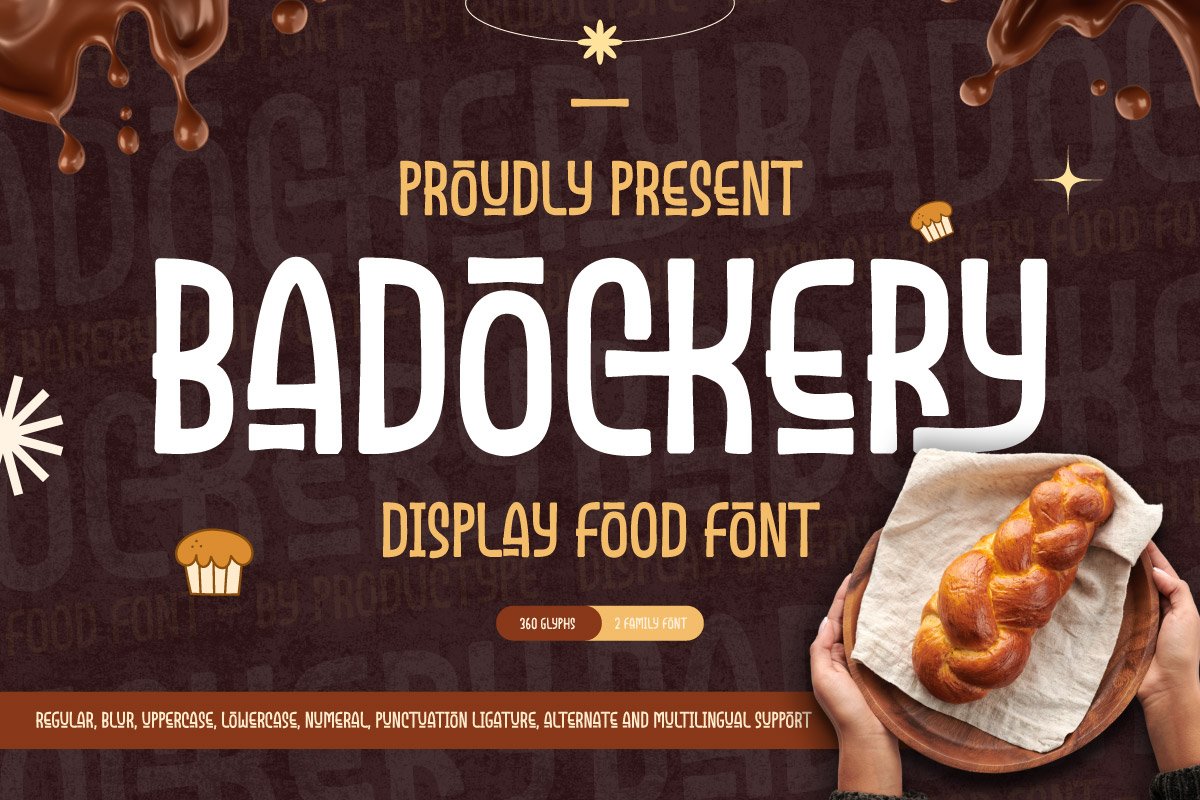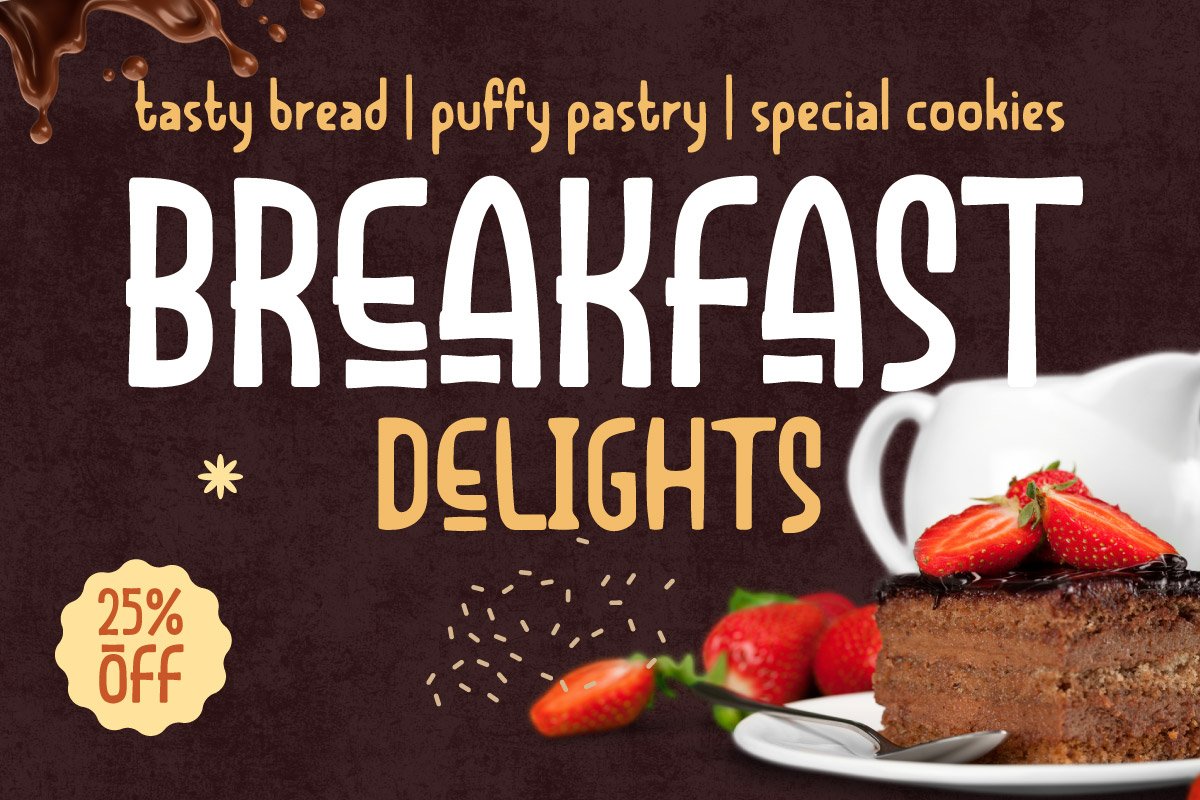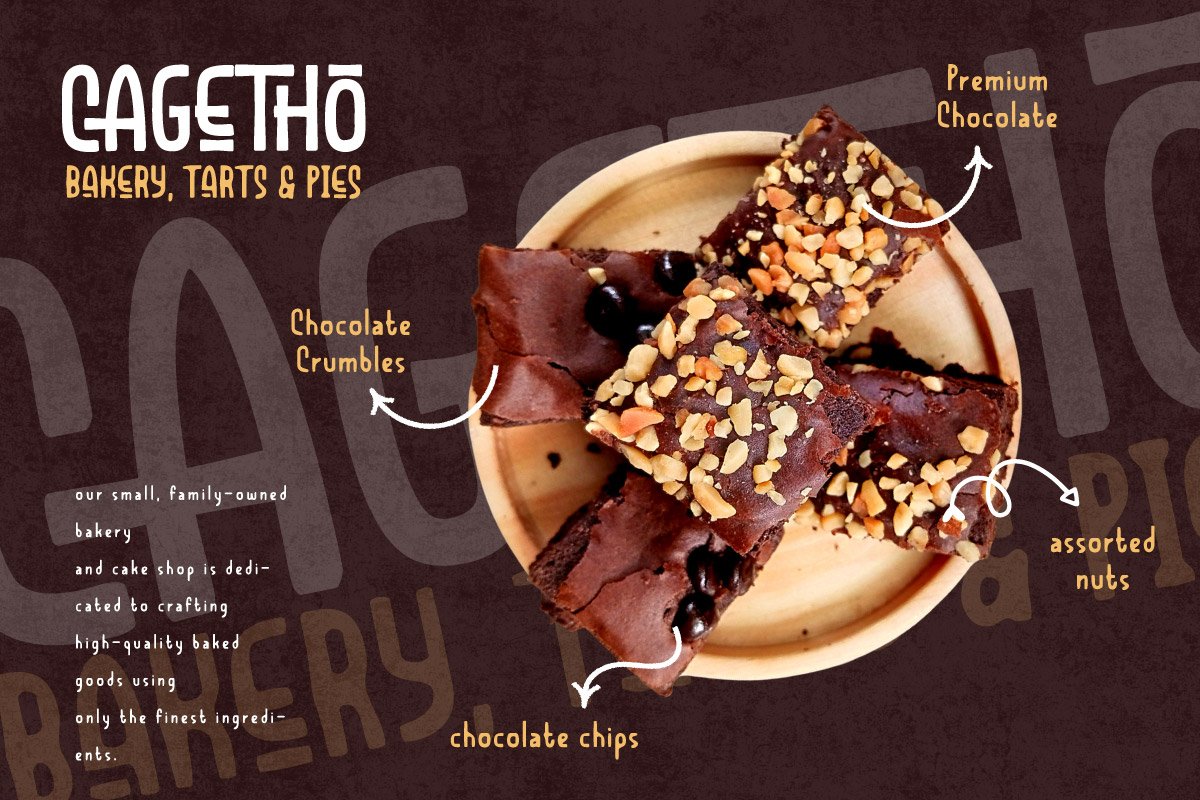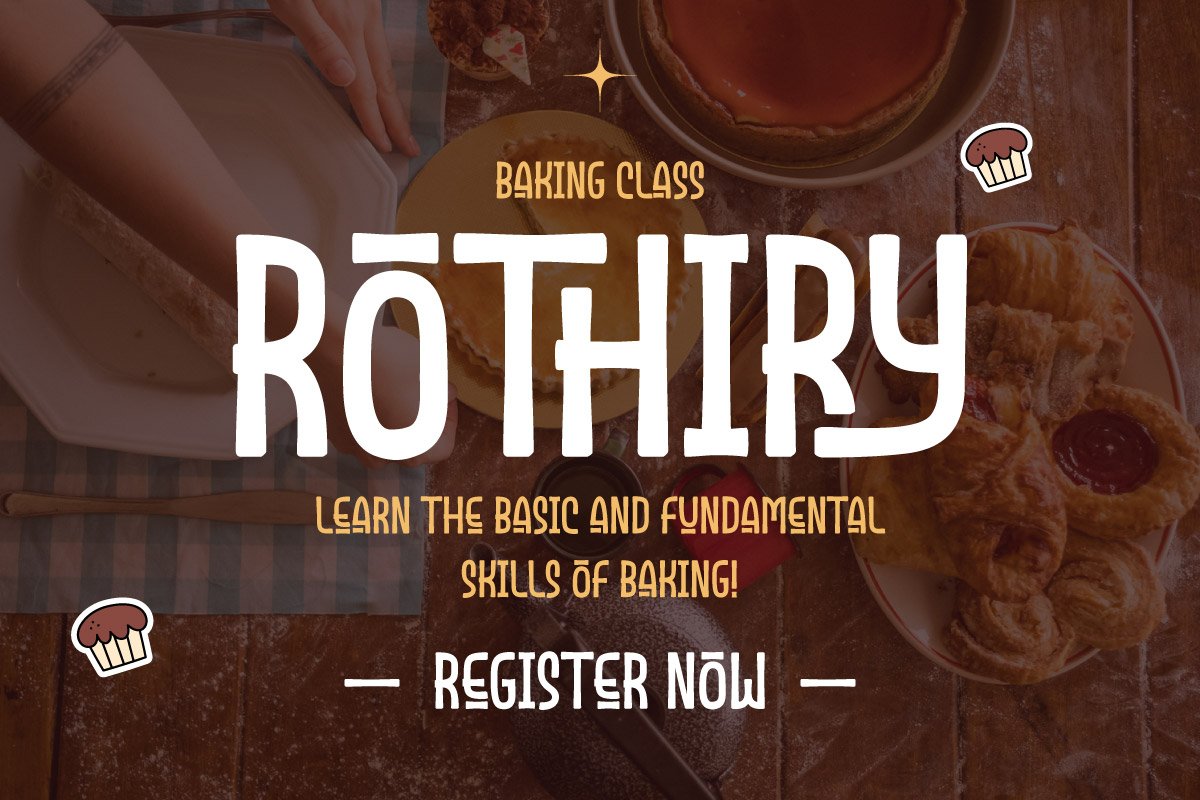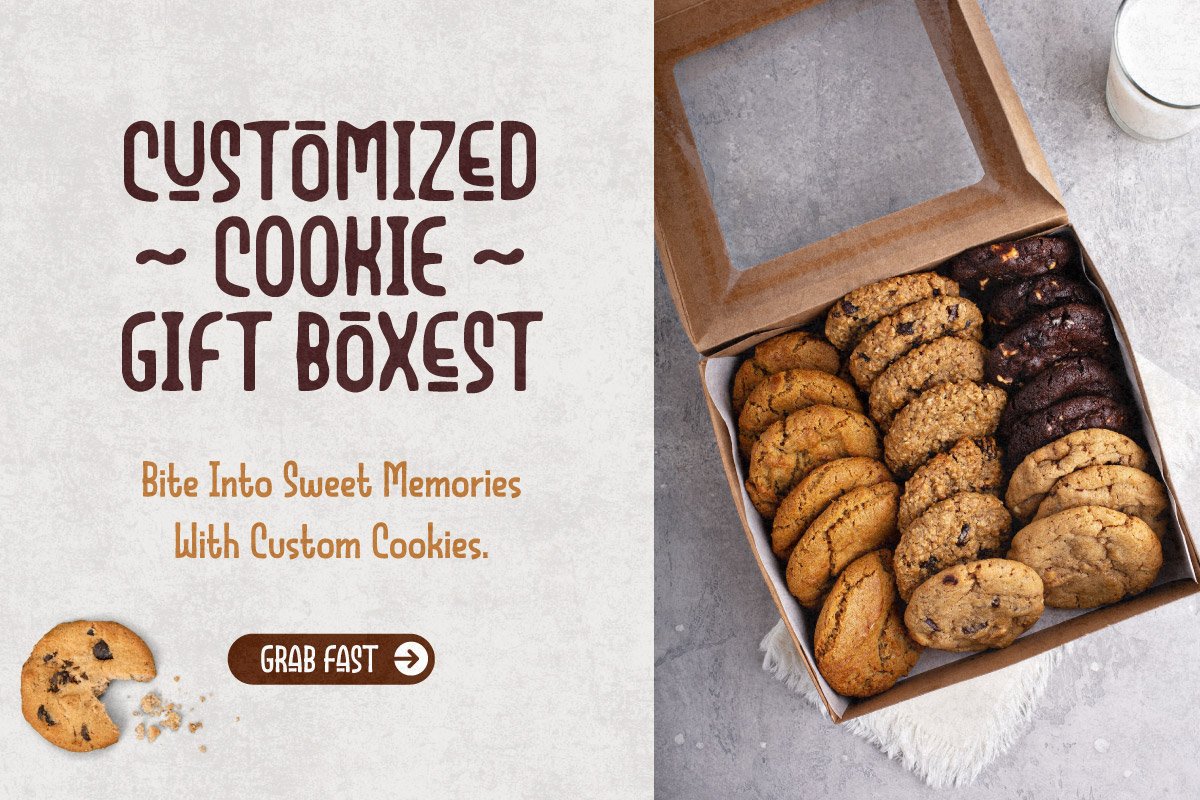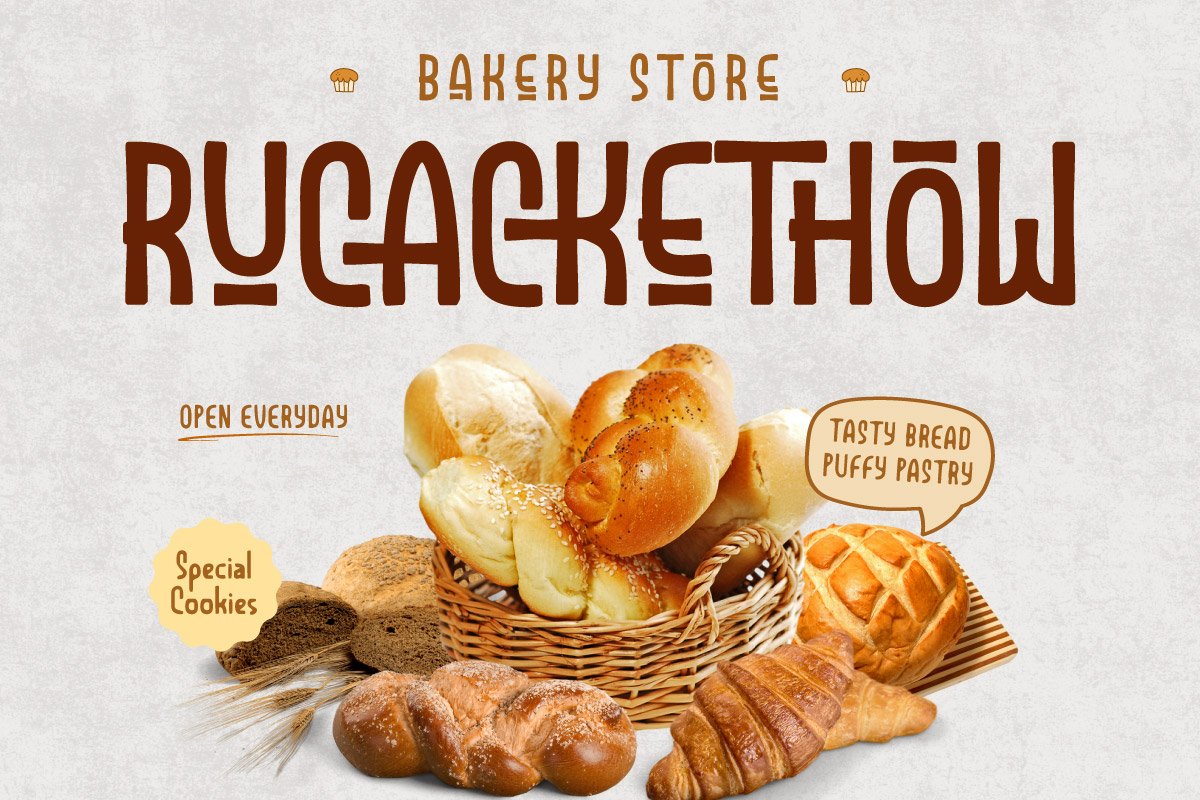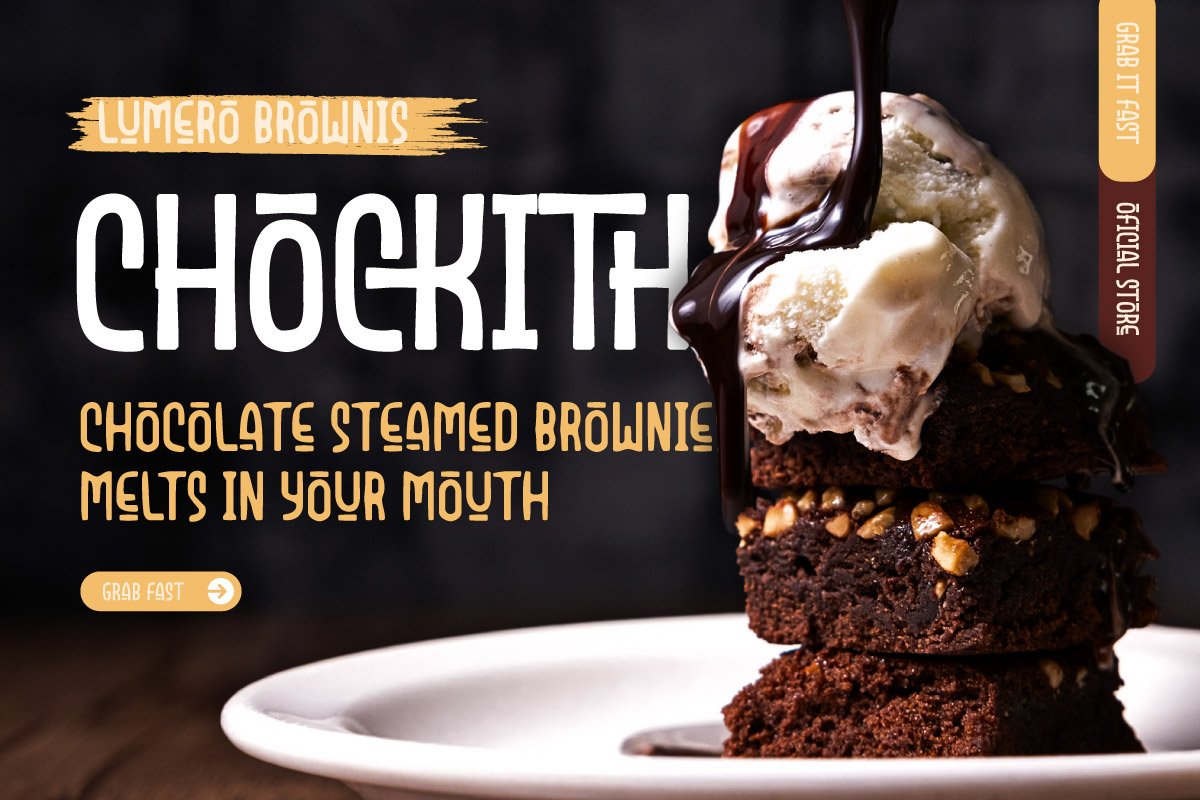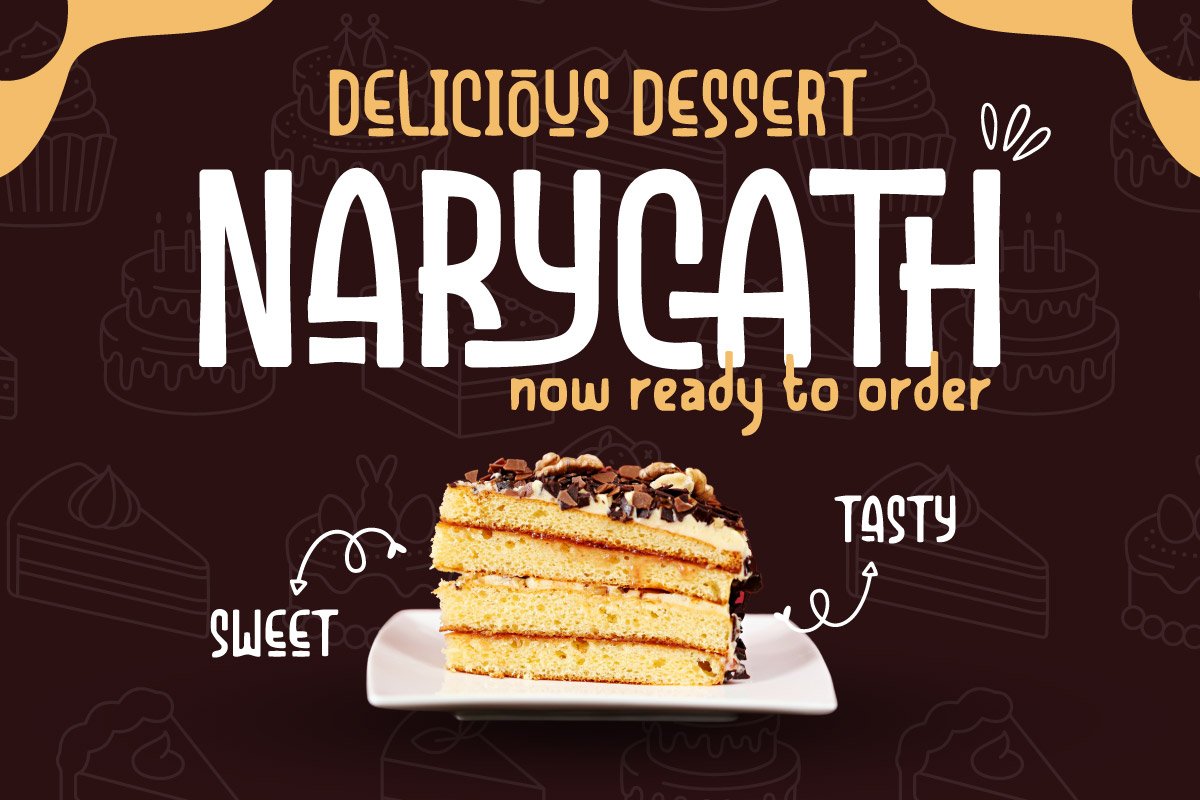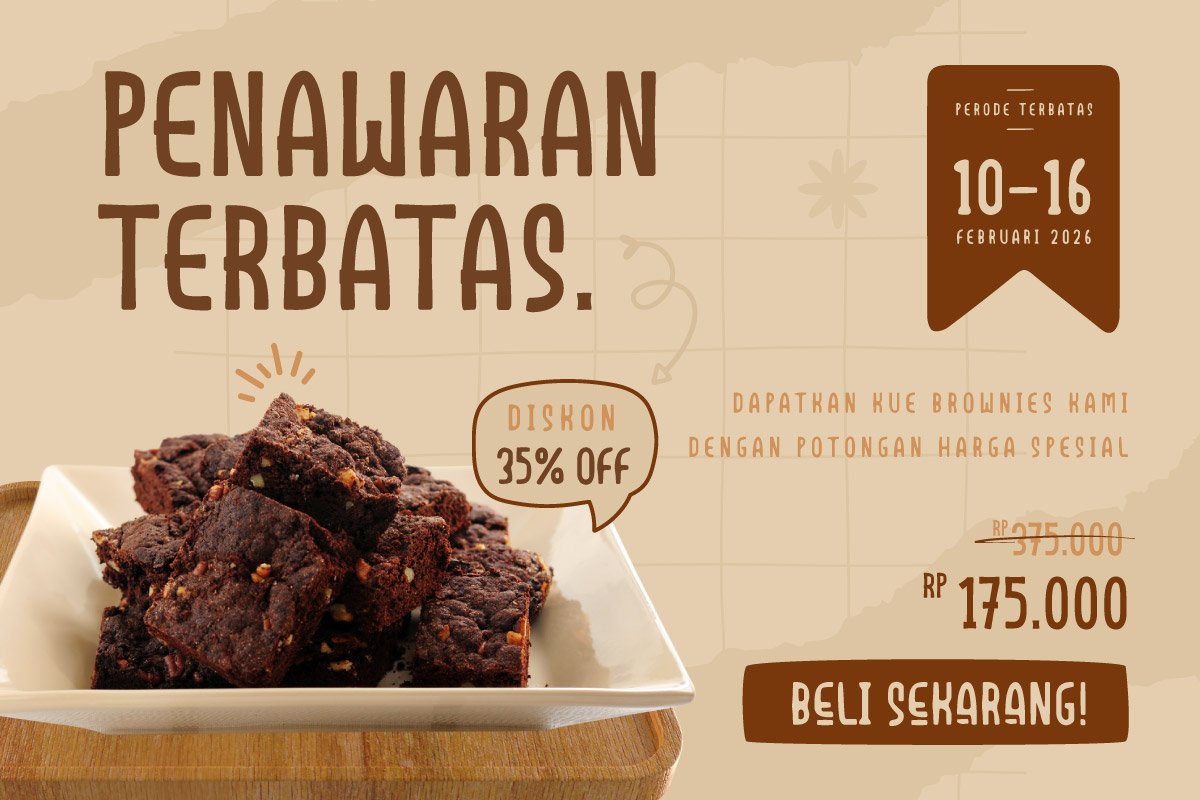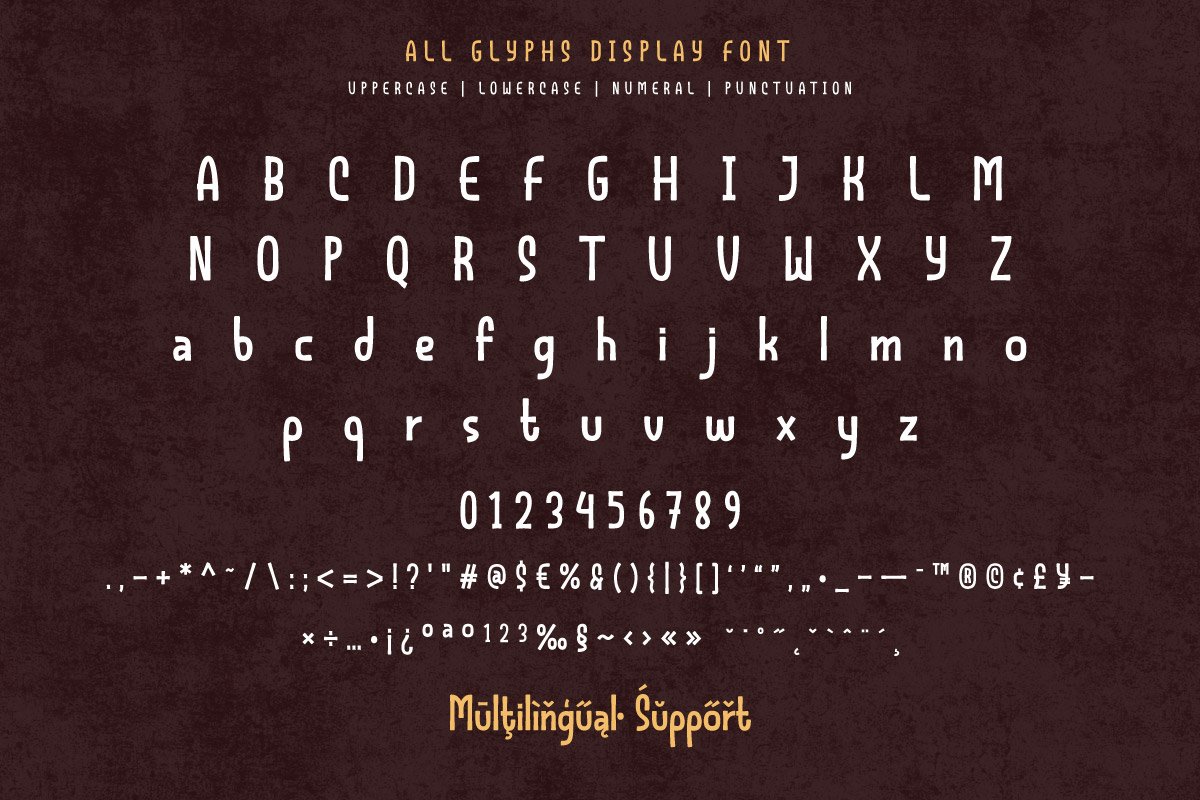
Badockery – Display Food Font
Badockery is a sweet and savory display font, perfectly baked for bakery and food-themed designs. With its chunky, soft letterforms and playful personality, this font brings a handcrafted charm that instantly evokes the warmth of fresh pastries, cozy cafes, and artisanal bakeries. Ideal for cake shop logos, bread packaging, dessert menus, or social media graphics for food brands, Badockery adds a friendly and flavorful touch to any visual.
Whether you’re designing labels for homemade treats or creating signage for a bakery storefront, Badockery delivers the perfect balance of boldness and approachability. Its unique style captures the joy of baking and the delight of indulgence — making your brand feel as inviting as a warm croissant on a Sunday morning.